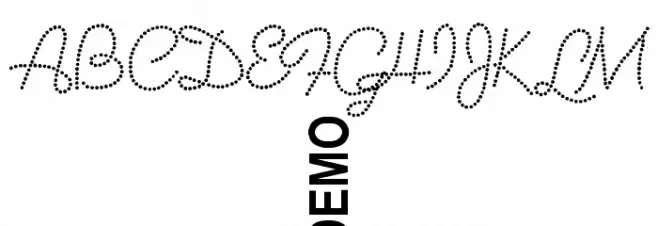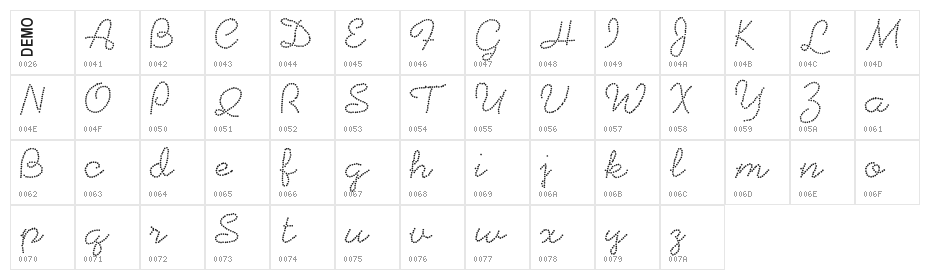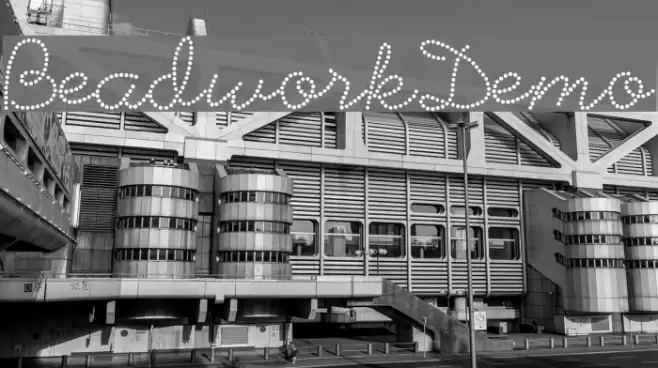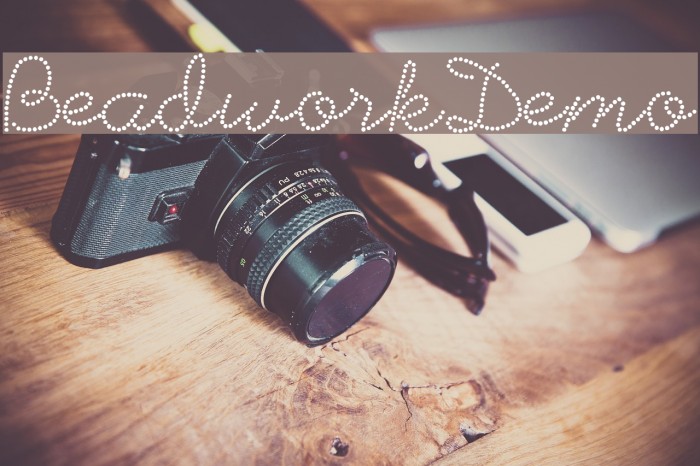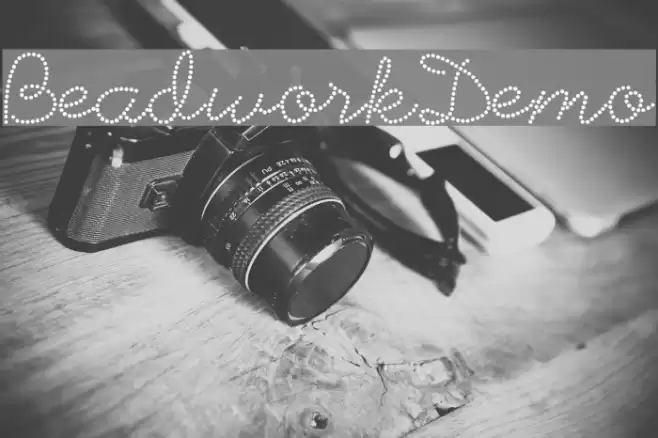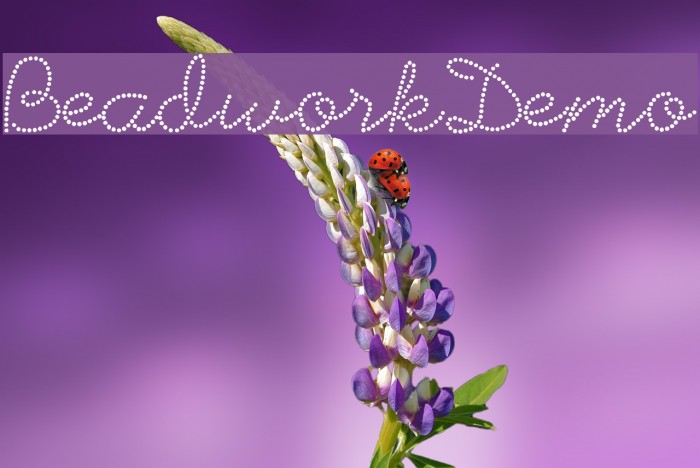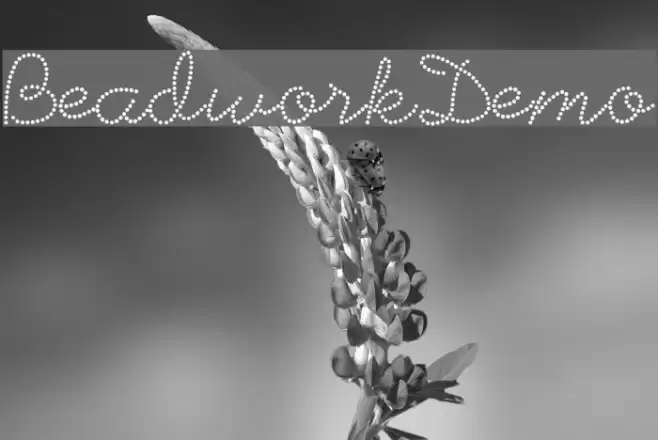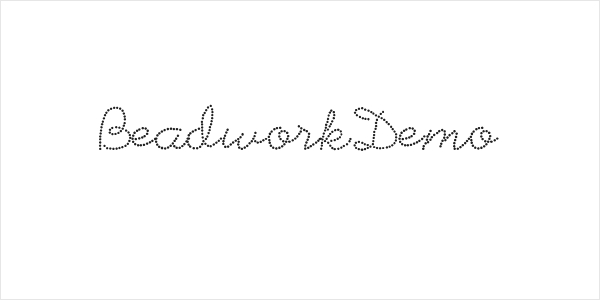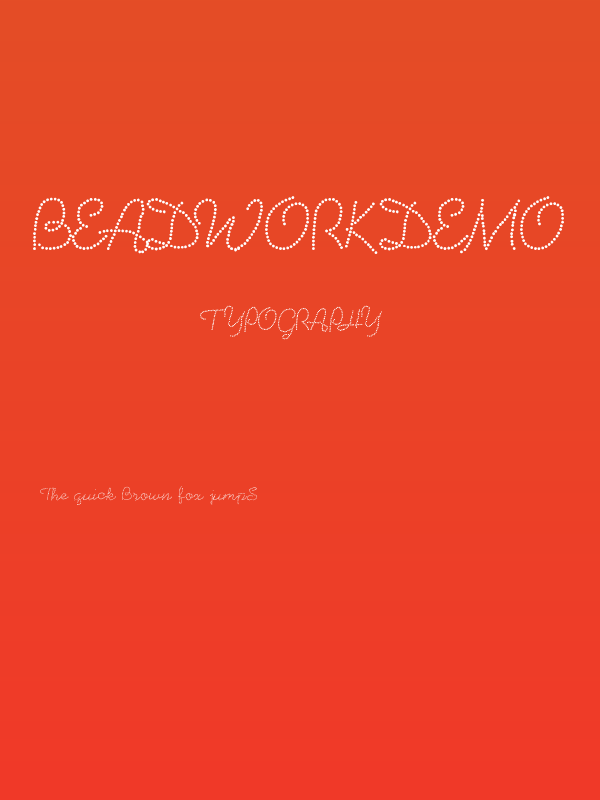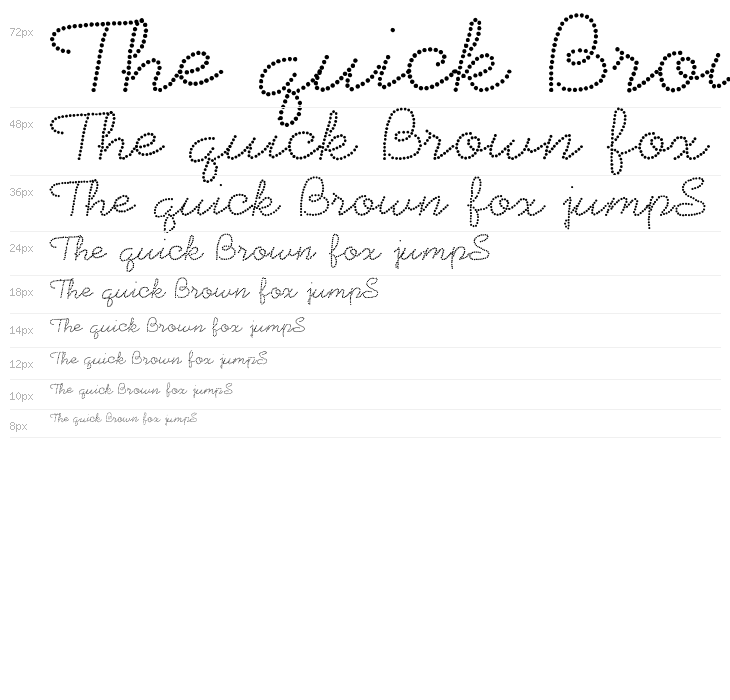
BeadworkDemo Font
BeadworkDemo Description
This font features a unique design that mimics the appearance of beadwork, with each character formed by a series of small, evenly spaced dots. The letters are connected in a cursive style, giving it a fluid and continuous look. The uppercase and lowercase letters maintain a consistent style, with rounded and flowing lines that create a harmonious and elegant appearance. The numbers and special characters follow the same dotted pattern, ensuring uniformity across all glyphs. This font is visually striking and offers a playful yet sophisticated aesthetic.